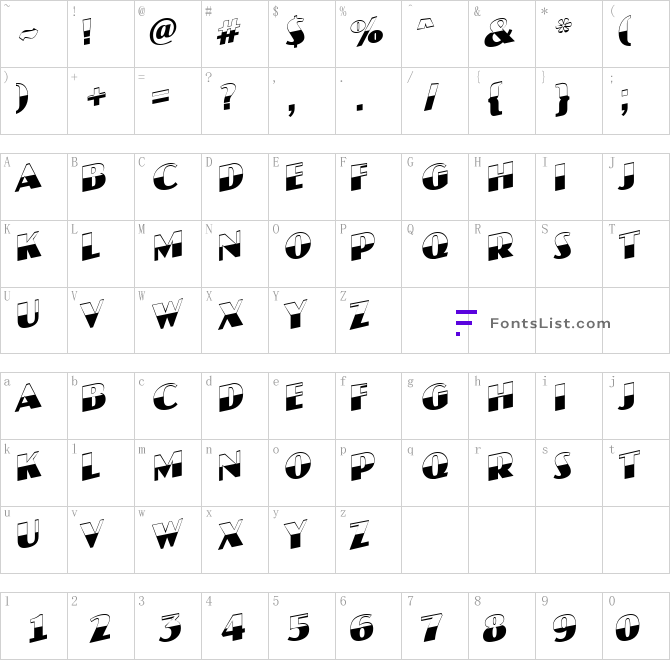
- Font Name:a_JasperTitulB&WUp
- Full Name:a_JasperTitulB&WUp
a_JasperTitulB-WUp.ttf is a very beautiful artistic font, a_JasperTitulB-WUp.ttf is widely used in the design and printing of various books and pictures,a_JasperTitulB-WUp.ttf has a strong visual impact,a_JasperTitulB-WUp.ttf is a commonly used font in newspapers, magazines and books, and is used in posters, e-commerce Poster design, store design, logo design, font design and other fields.a_JasperTitulB-WUp.